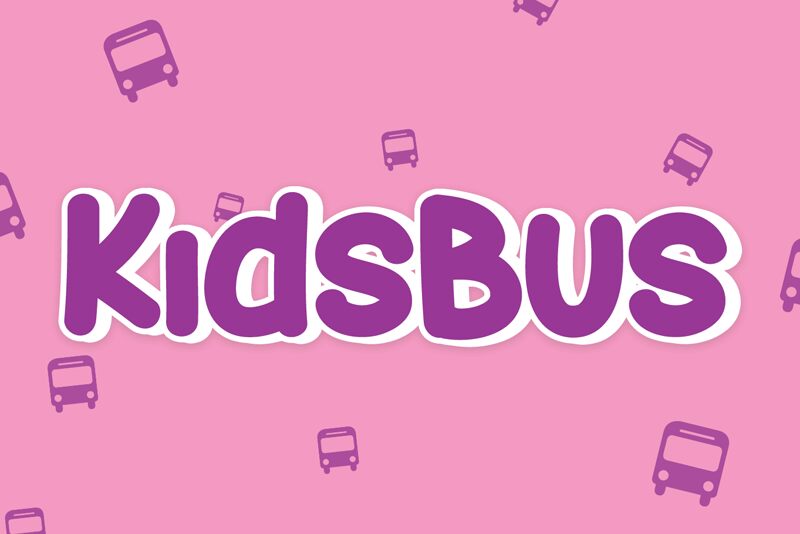
Kids Bus
Kids Bus font by Erik Studio is a free cartoon display font that rides on big, squishy curves and a friendly hand-drawn wobble. The letters feel like foam stickers—chunky, high-contrast, and easy to read at a glance—so headlines pop without looking stiff or grown-up.
Using Kids Bus, you can brighten classroom posters, birthday invitations, toy packaging, app splash screens, YouTube thumbnails, and daycare signage. The generous spacing keeps copy lively yet legible, even when stacked. This free font shines in bold sizes; pair it with a clean geometric sans for small details to keep the playful energy grounded.